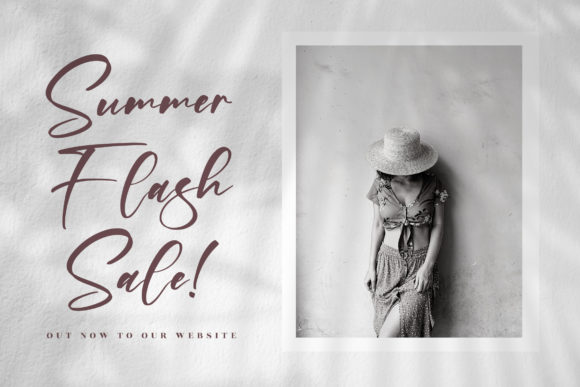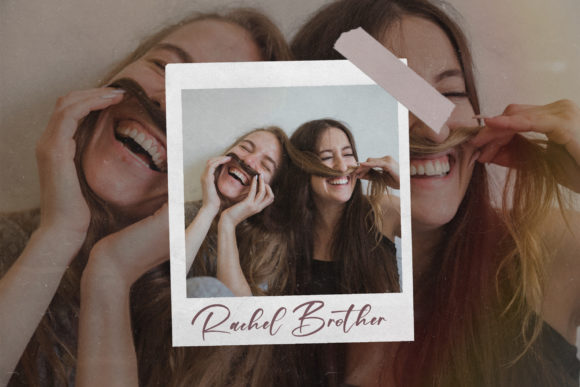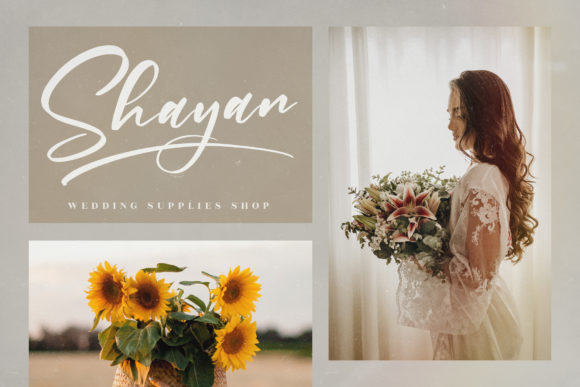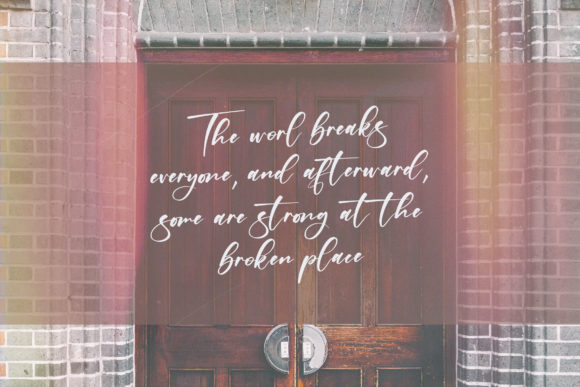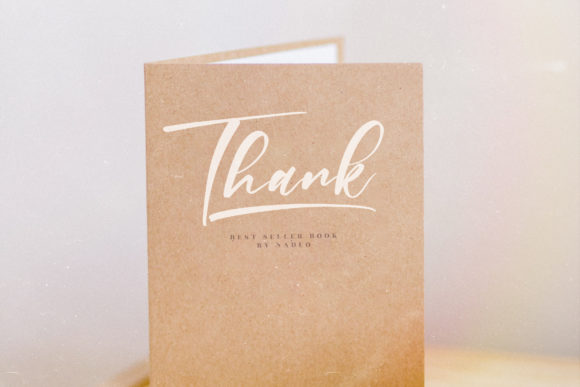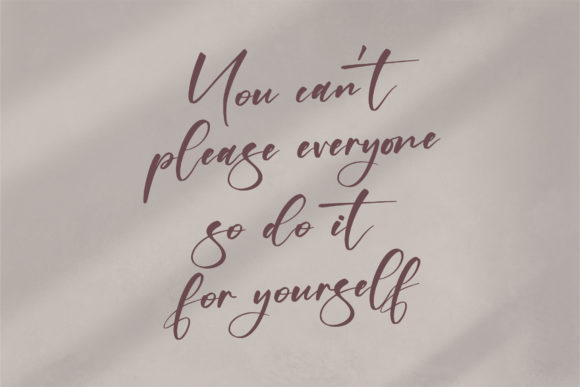
Introduction to Rockett Dreams Font
Have you ever found yourself staring at a blank page, struggling to bring your creative vision to life? You know the feeling – the blank canvas is taunting you, daring you to take the leap and create something truly special. That’s when the magic happens, and the perfect font comes along to inspire you. For designers, the right font can make all the difference in elevating a project from good to great. And that’s exactly what the Rockett Dreams Font does.
This beautiful script font is more than just a design resource – it’s a game-changer for any creative project. With its high-quality, elegant lines and transparent background, it’s the perfect addition to logos, branding projects, and even homeware designs. And the best part? It’s available for free download, making it a valuable asset for designers on a budget.
Key Features of Rockett Dreams Font
- High-quality font design for creative projects, ideal for those seeking a unique aesthetic.
- Transparent background, allowing for easy overlay and customization in design resources.
- Includes a wide range of characters, including uppercase and lowercase letters, numbers, and special symbols.
- Perfect for use in graphic design, digital art, and other creative endeavors where a distinctive font is desired.
Honest Review: Rockett Dreams Font
I recently had the chance to work with the Rockett Dreams Font, and I must say it’s a lovely addition to any design project. This high-quality font is perfect for those who want to add a touch of whimsy and playfulness to their work.
One of the standout features of this font is its transparent background, which makes it super easy to work with. I love how versatile it is, and it pairs well with a wide range of design resources.
- Easy to use, thanks to its transparent background
- Great for adding a playful touch to designs
- May not be suitable for formal or professional designs
- Some users may find the font a bit too playful for their taste
- Not as extensive a character set as some other fonts
Overall, I’d say the Rockett Dreams Font is a solid choice for designers looking to add some personality to their work. While it may have some limitations, its high-quality design and transparent background make it a valuable resource for any design project.
The Rockett Dreams Font is a versatile design resource that can be used in a variety of creative projects, including logos, branding, and marketing materials. It’s also a great choice for designers looking for a high-quality font with a transparent background. With its unique style and design, the Rockett Dreams Font is sure to add a touch of creativity to your next project.